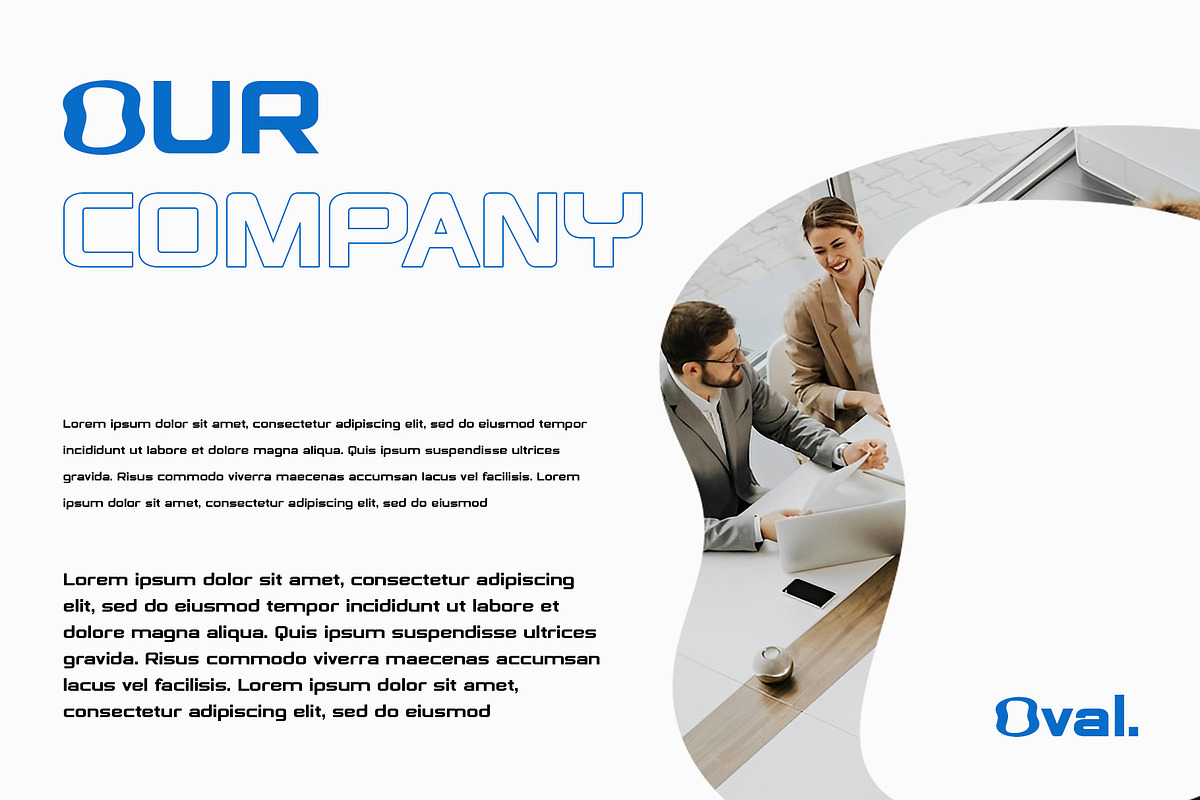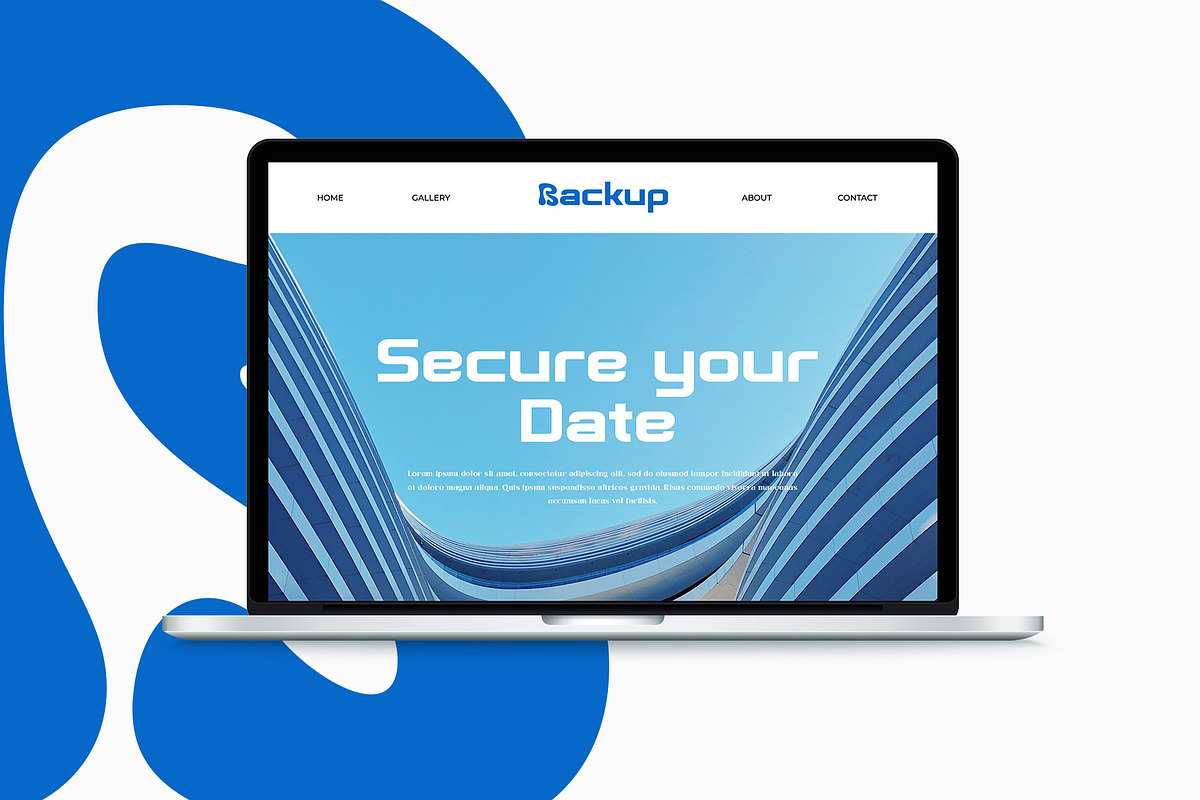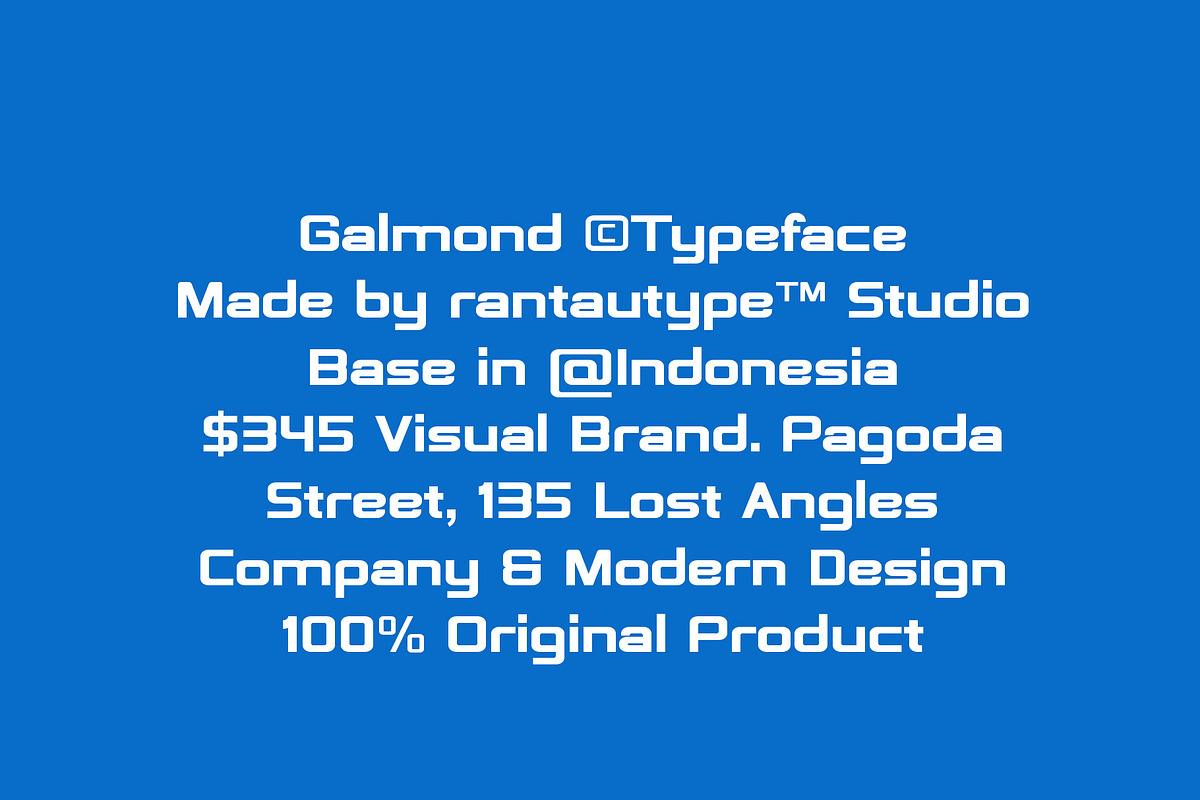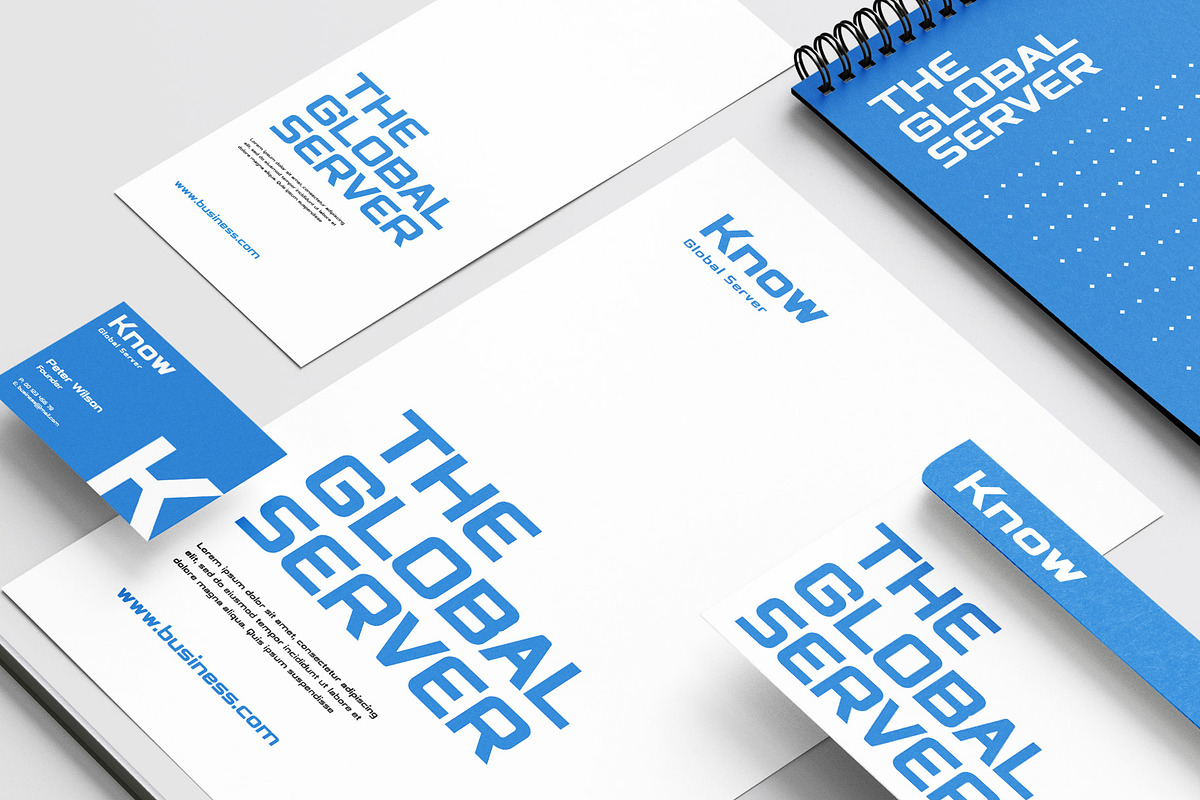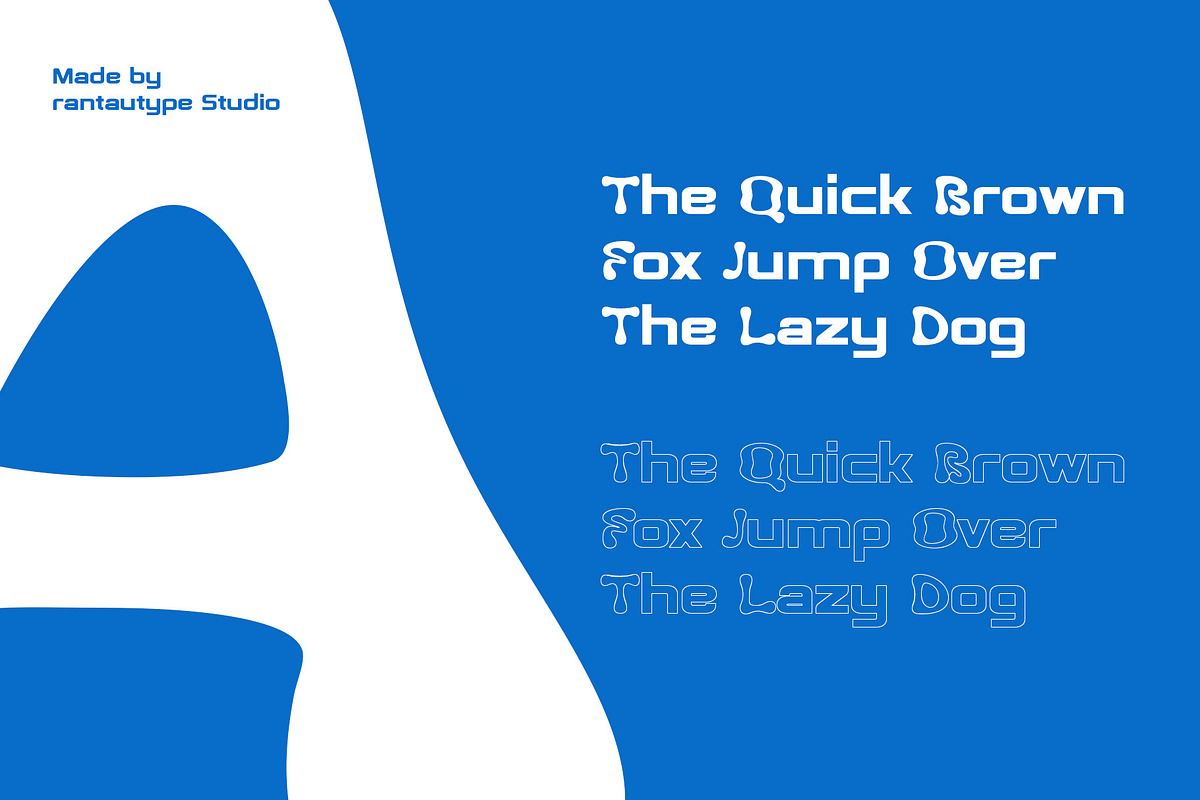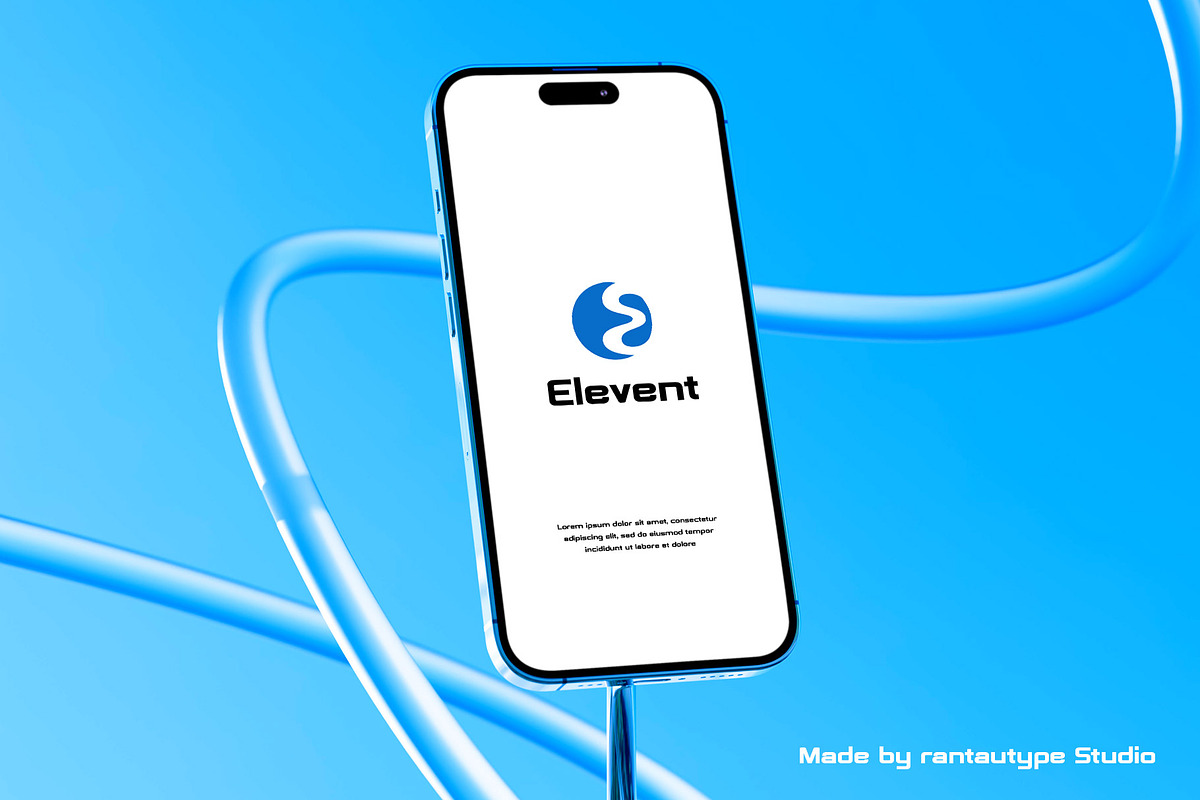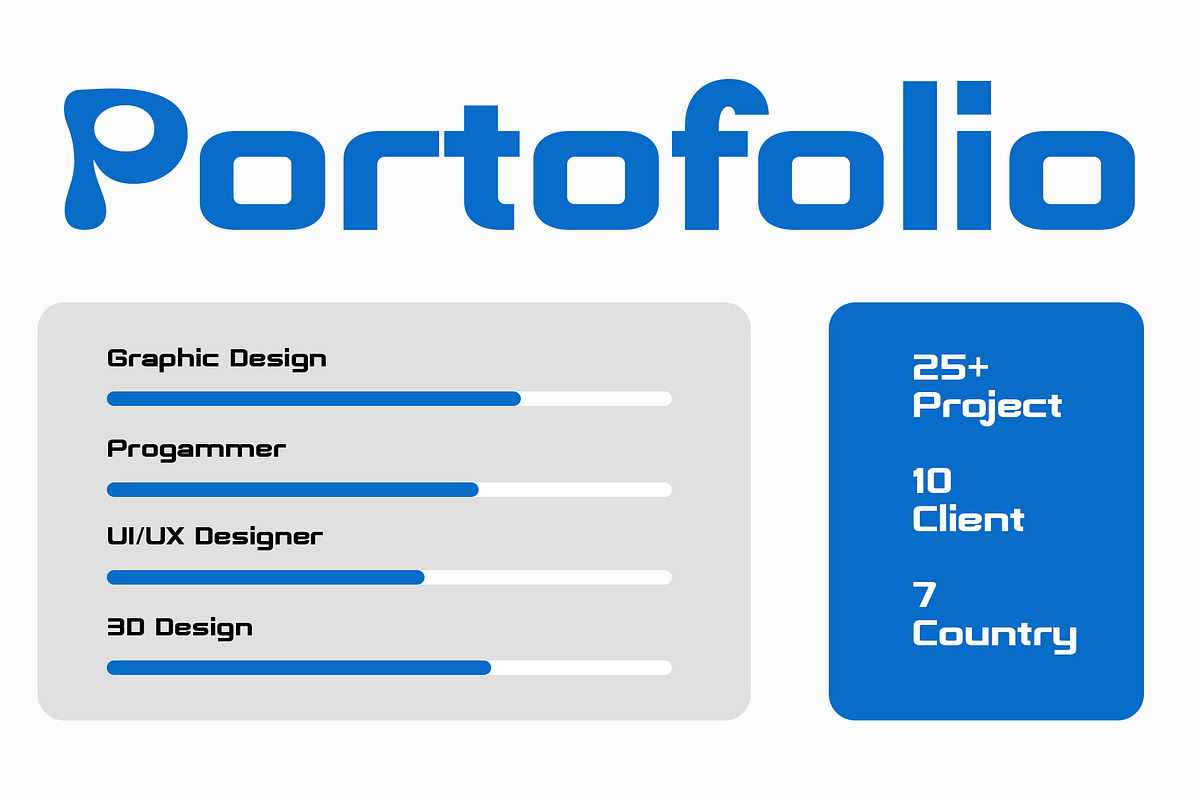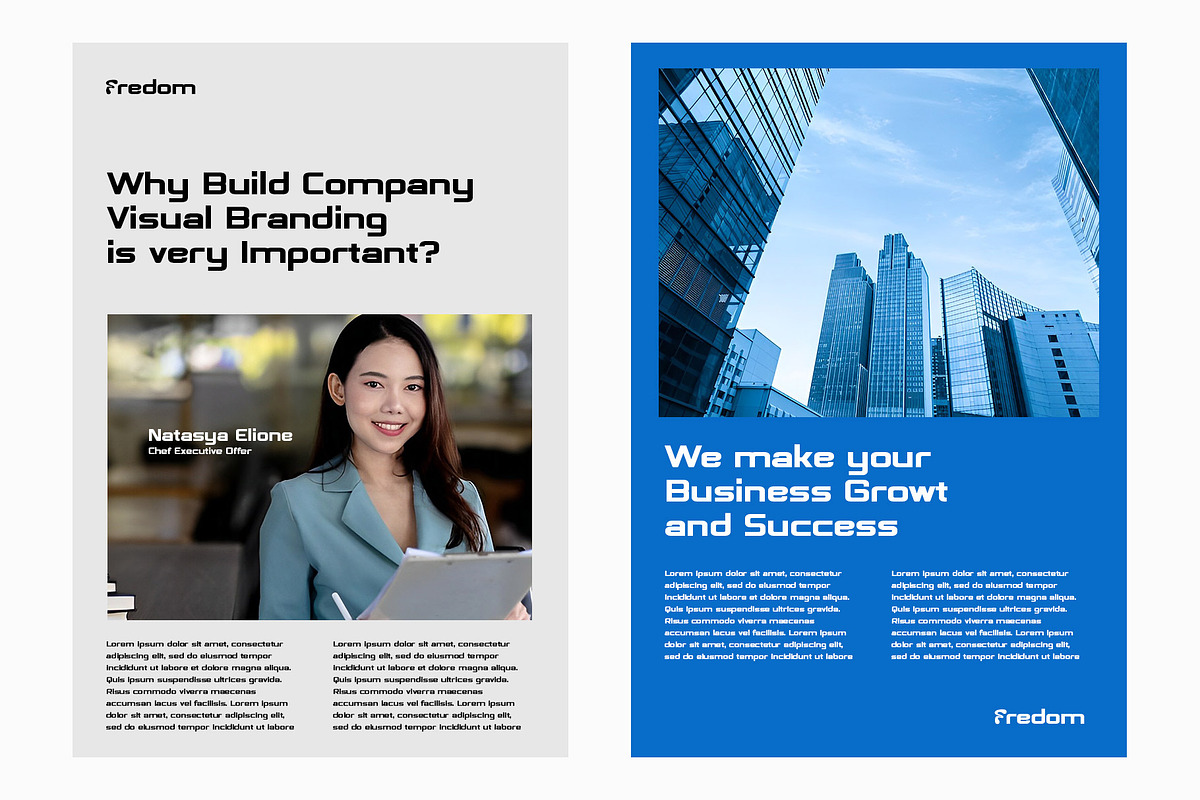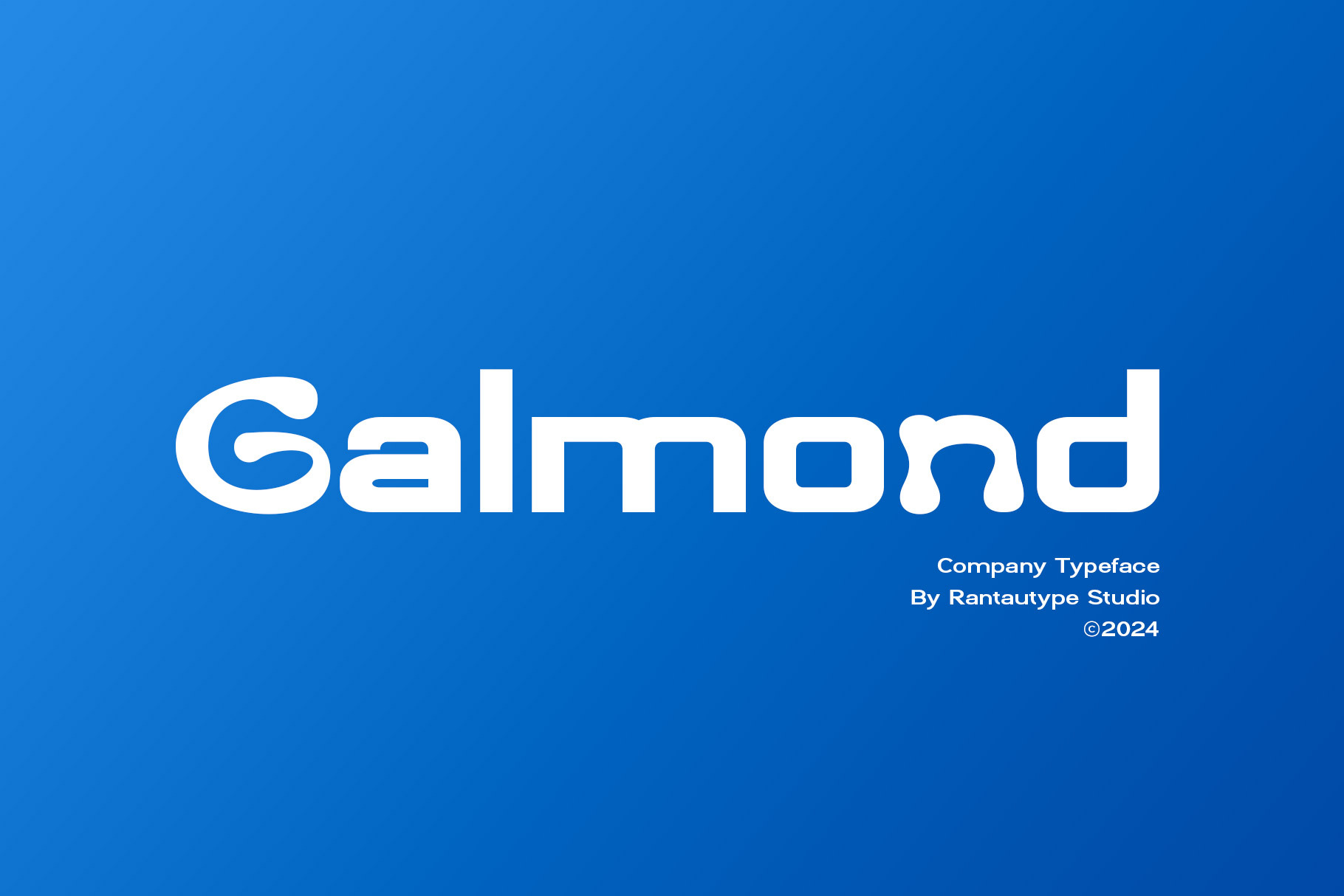
Galmond Company Typeface
Galmond is modern company typeface with futuristic look. Galmond come soft and flow curve liquid alternate trend, makes this font so perfect and versatile. Galmond separated in reguler and outline version to help you make design project more variative.
Galmond is a perfectly choice for any creative endeavor, lifestyle design such as logos, advertisements, watermark on photography, stationery, branding project, display and magazine, invitation, corporate brand, product design, label, business project and many other project with futuristic touch.
- Alternate and Ligature